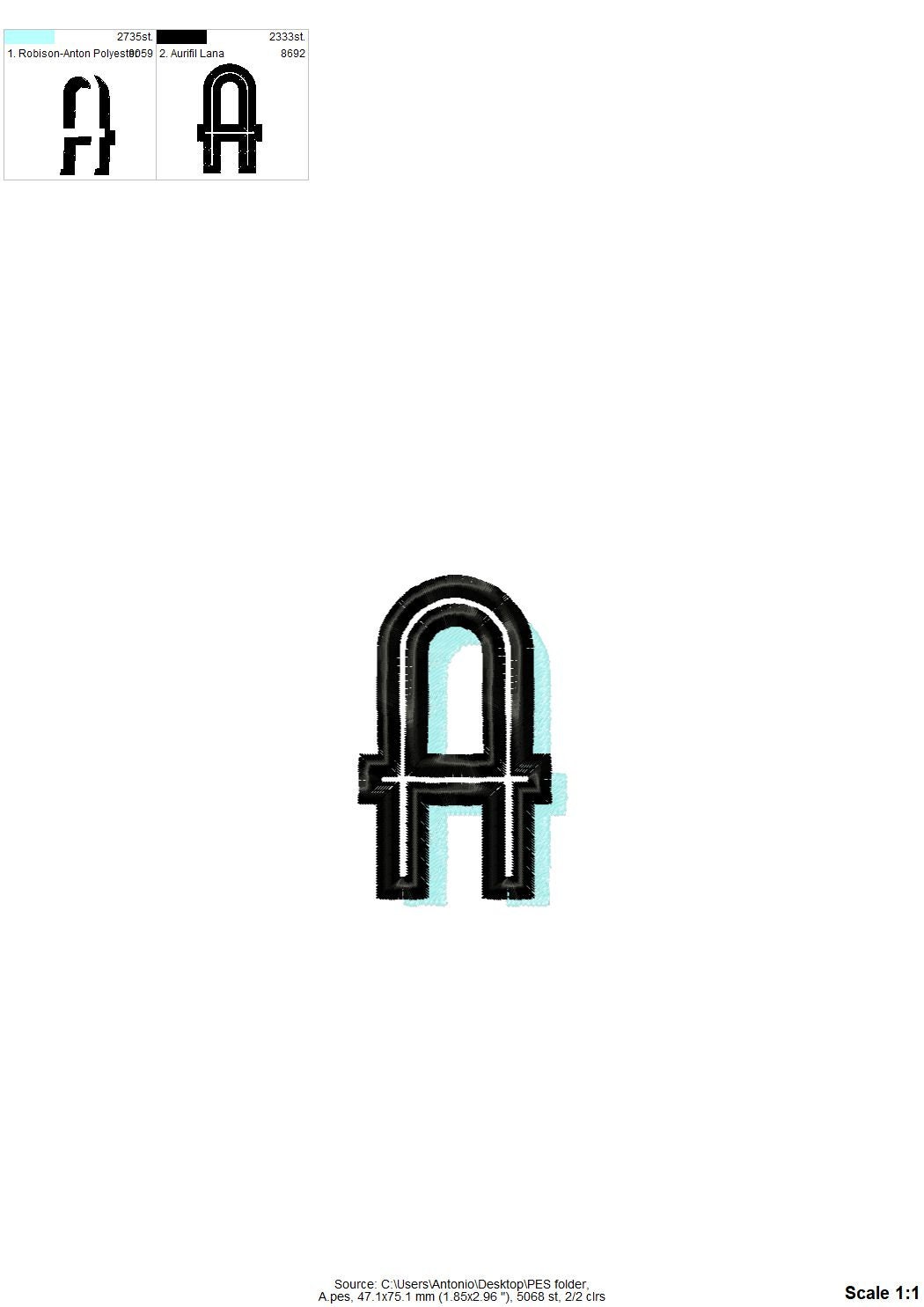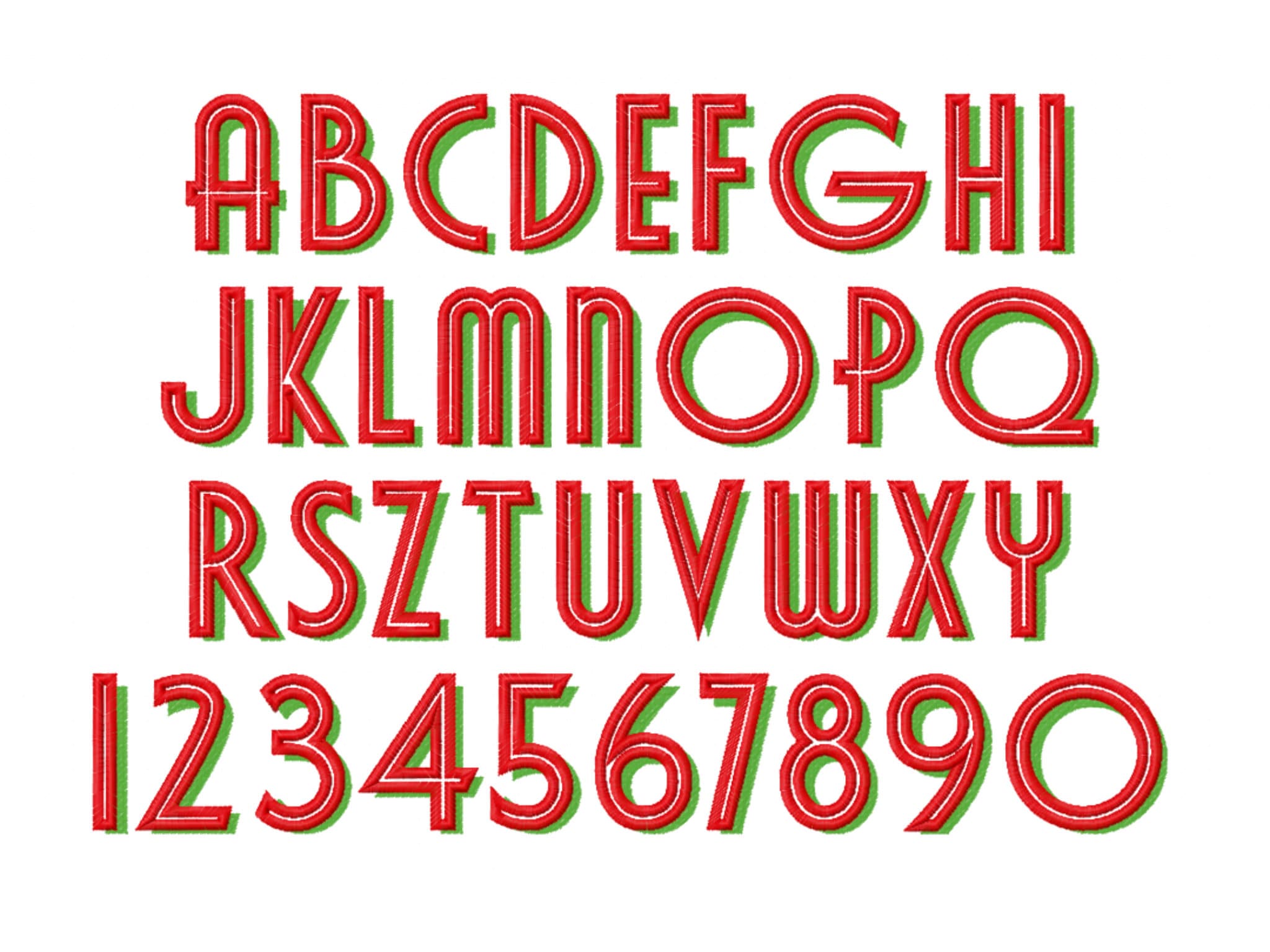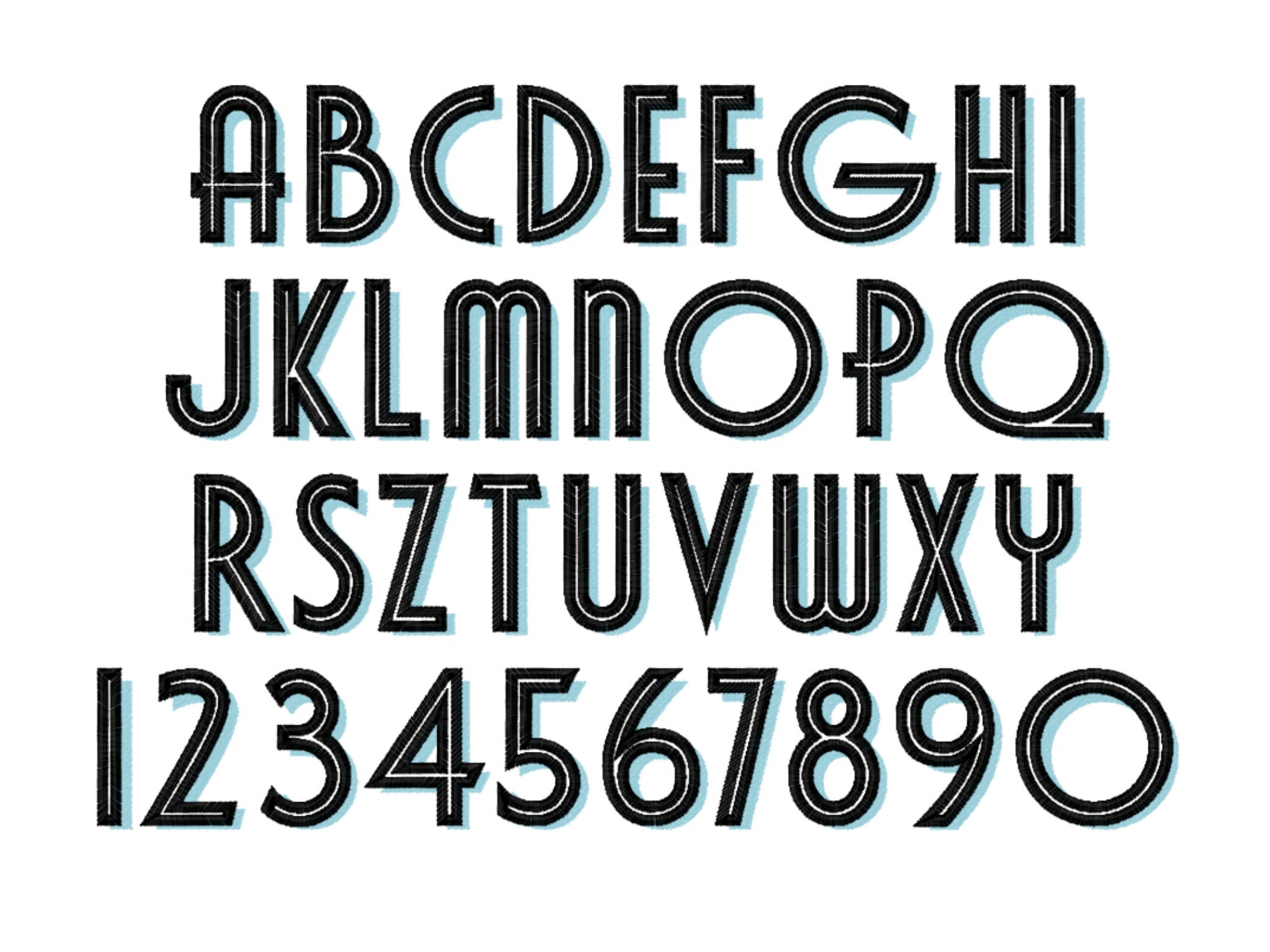
Shadow Font Retro style Art Deco Alphabet Monogram satin and fill stitch letters machine embroidery designs sizes 1.8 up to 4 inches BX
Capital letters and numbers
Very “retro” looking font. It has become my new favorite!